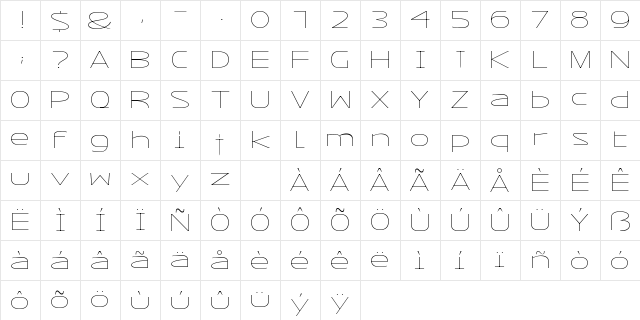
Mash Variable Regular
Design Context for Mash Variable
Mash Variable is a composed and adaptable typeface that performs quietly and consistently across a wide range of design contexts.